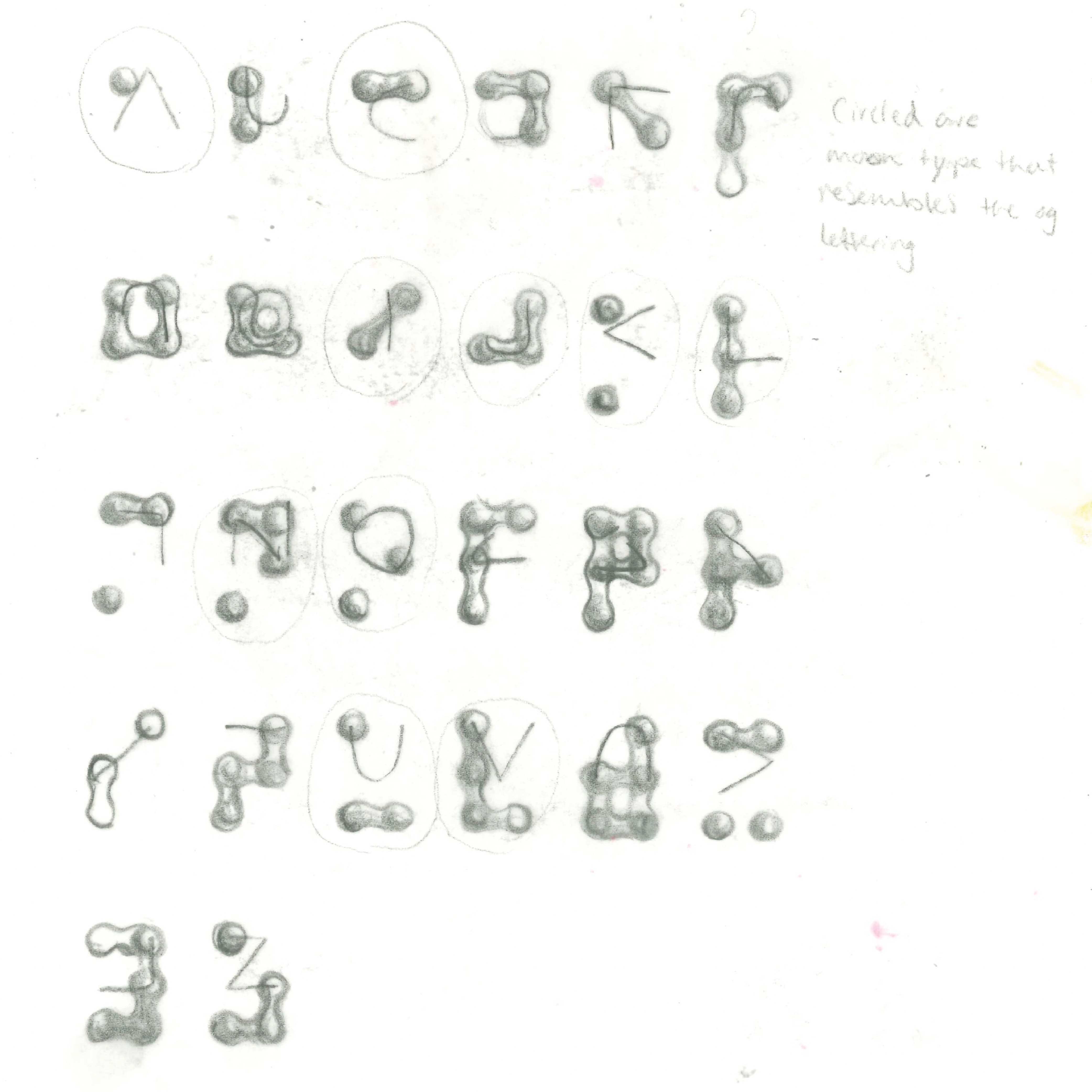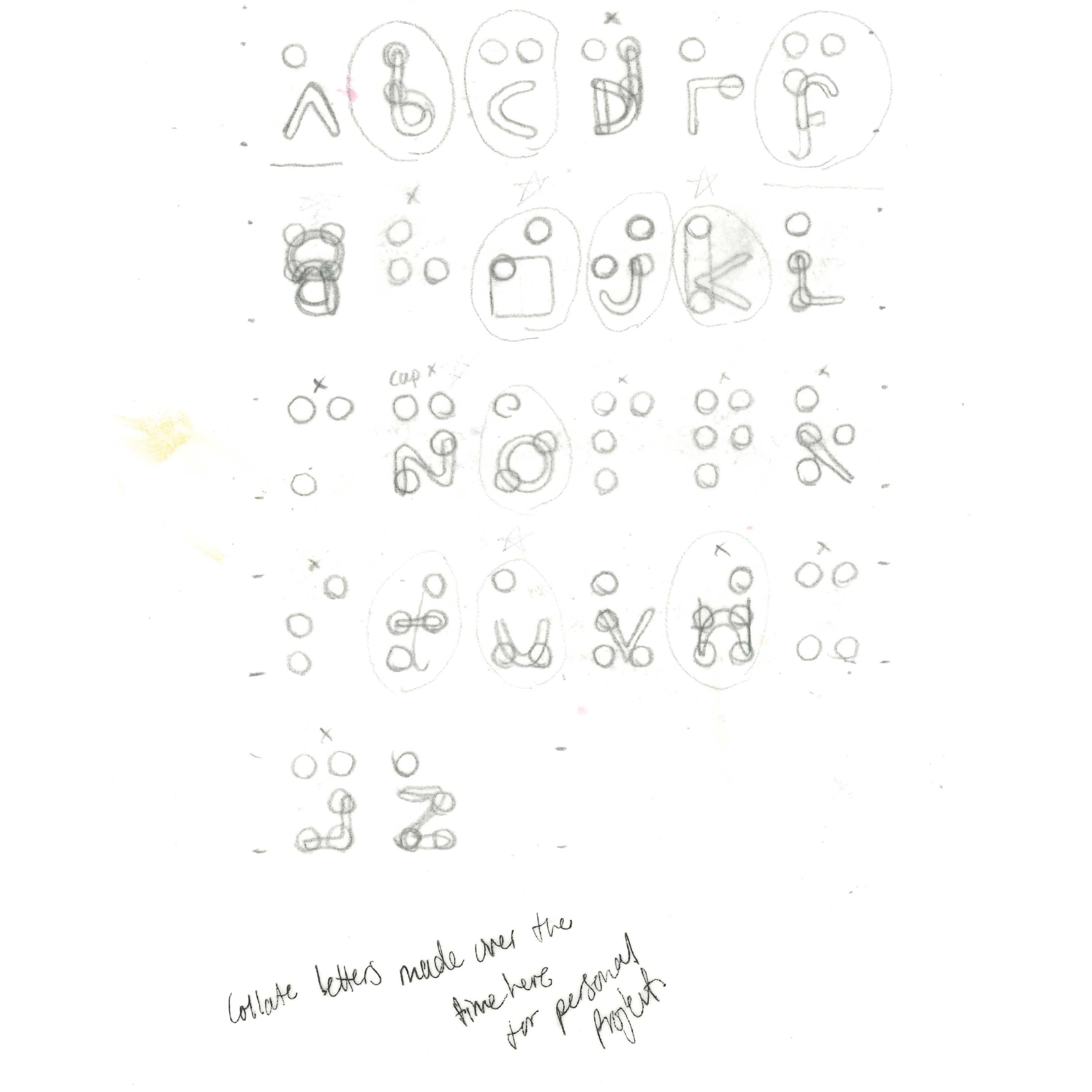
F37 Haptic
A peak into an unseen world, Jack Bennett’s F37 Haptic reveals a graphic language only experienced through touch.
Informed by research and developed to accompany Jack’s graduation project, F37 Haptic engages with the challenges of haptic literacy in a predominantly visual world. The font combines both the Latin character and braille representation on top of each other. The dots take the true position of the raised dot used in grade 1 braille. F37 Haptic is available in 4 weights, however the weights reflect the size of the dots and not the stroke of the letter forms. As the weight increases, the dots begin to obscure the letter forms. Regular is a dot-free sans serif, while Bold displays the dots prominently.
The Designer
Inspiration
F37 Haptic
Medium
SemiBold
Interview
Tell us about the inspiration behind your collaboration with F37®×. If it was an unused concept, what was the potential use case for it.
I recognised at university that vision impairment is often on a spectrum and that there was a need for a typeface that both blind and non-blind readers could easily understand. This stemmed a desire to bridge the gap between traditional text and Braille, helping create a more inclusive and accessible reading experience for individuals with vision impairments.
When starting the process of creating your font, what typographic conventions did you look to break or experiment with? Or were there conventions of functionality you championed?
In traditional typography, there is little consideration for tactile feedback. This typeface broke conventions by incorporating raised Braille as a tactile element, making the typeface versatile and engaging the reader visually and also through touch.
Now that your typeface has launched, what would be your dream project to use your F37® typeface on?
I think it would be a dream for it to being implemented in to the NHS health system in leaflets and cards. Also where I think this typeface would flourish is in the education system helping the vision impaired learn Braille.
What have you learnt through developing and creating your own typeface(s) with our F37® type designers?
Understanding Diverse User Needs. Designing a typeface that has the potential to serve a wide range of users provided me with a deeper understanding of accessibility issues and how typography can help with them.
How would you describe your typeface in three words?
Inclusive, Innovative and Versatile.